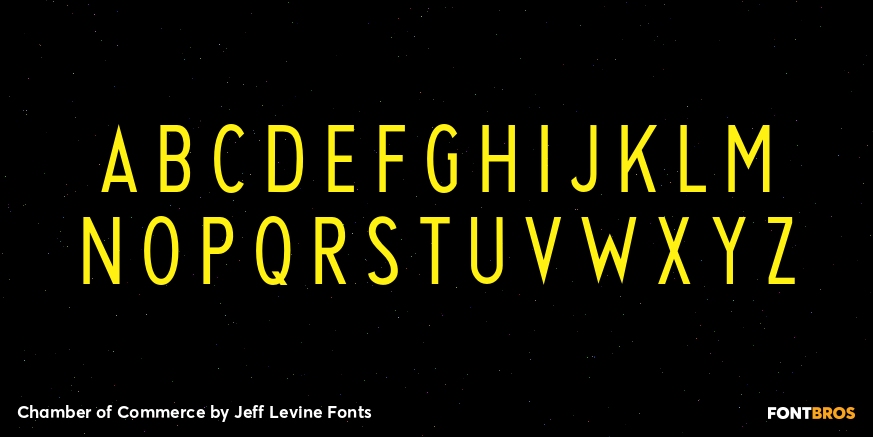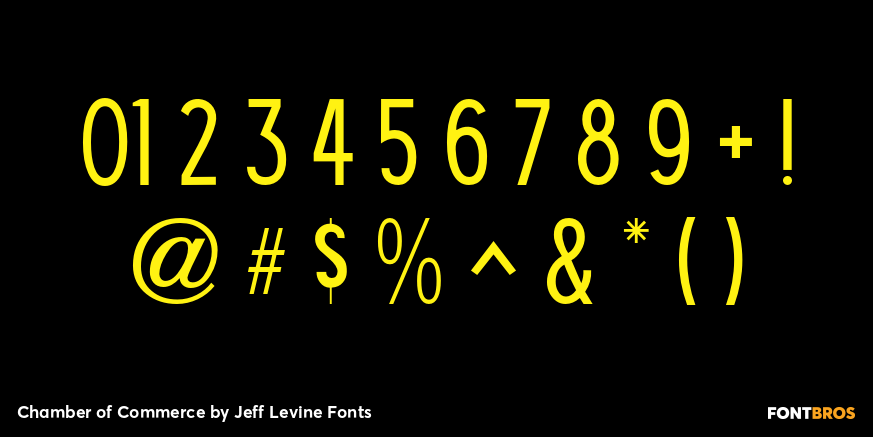
Chamber of Commerce
Chamber of Commerce JNL is loosely based on a type style used for some rubber stamp letters and numbers from a vintage child's printing set. Originally a cast shadow design, Jeff Levine felt the lettering merited a direct treatment in both regular and oblique styles without the shadow effect.
Chamber of Commerce JNL Regular
Chamber of Commerce JNL Oblique